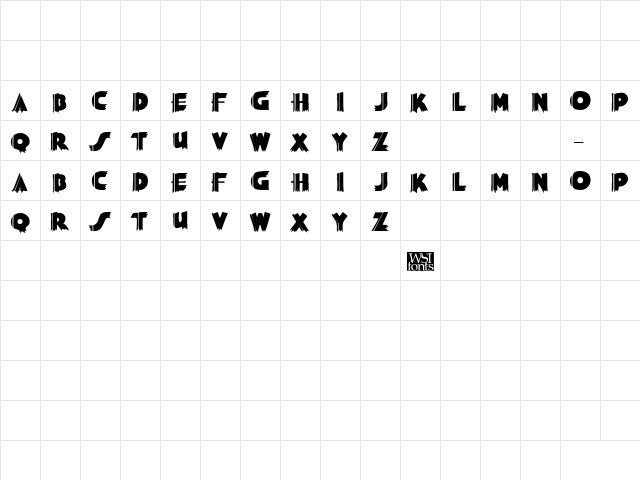
SashDisplayCaps Bold
Design Context for SashDisplayCaps Typeface
SashDisplayCaps brings ornamental detail and strong personality to headlines and identities, where visual impact matters more than quiet functionality. The heavy weight commands attention and anchors typographic hierarchies.
Font Pairing: Pair with a clean neutral sans-serif for body copy to let SashDisplayCaps's character lead without overwhelming the composition.
Pro Tip: Use SashDisplayCaps exclusively at display sizes — it was designed to be seen, not read at length. Let a neutral companion handle body copy.